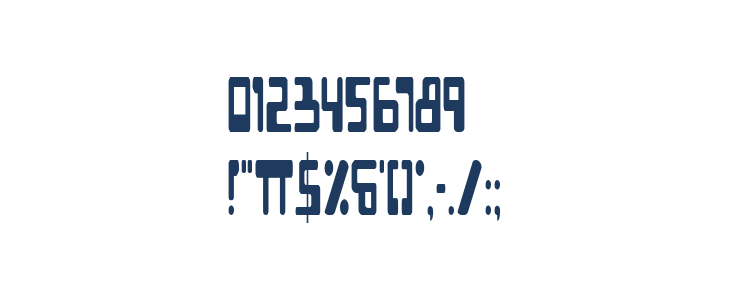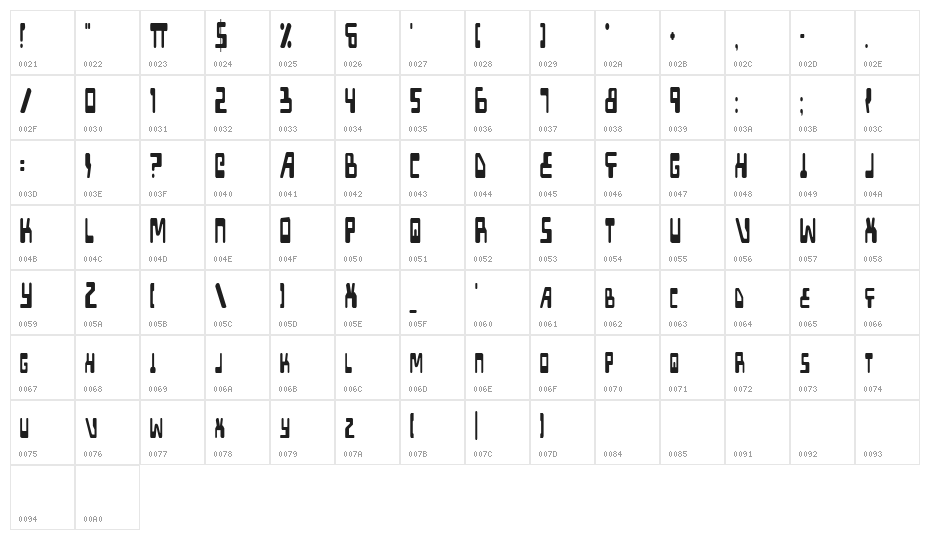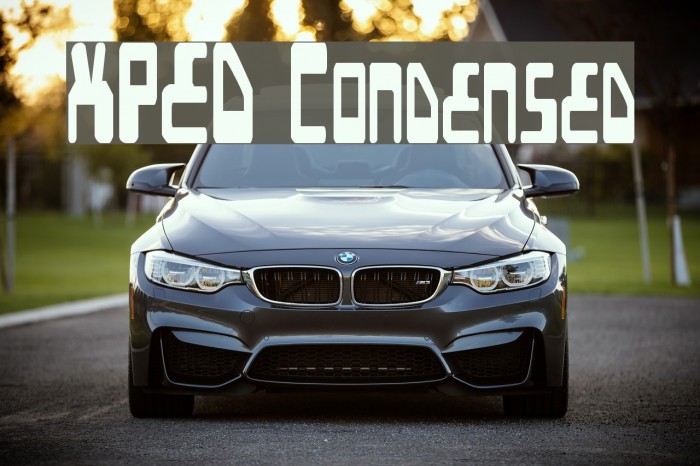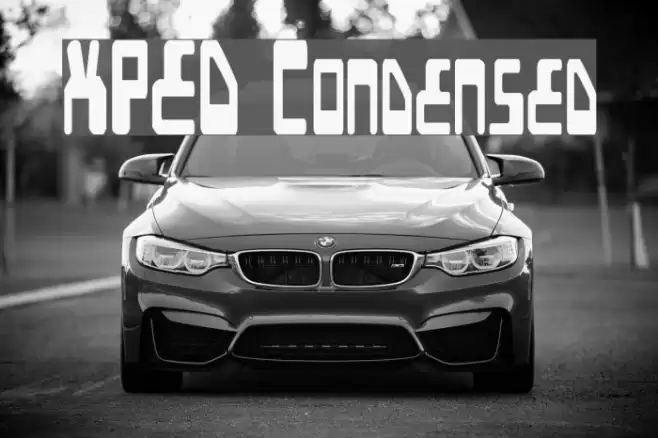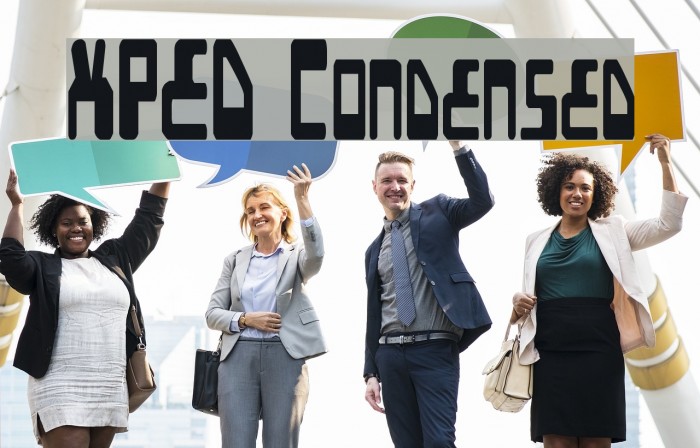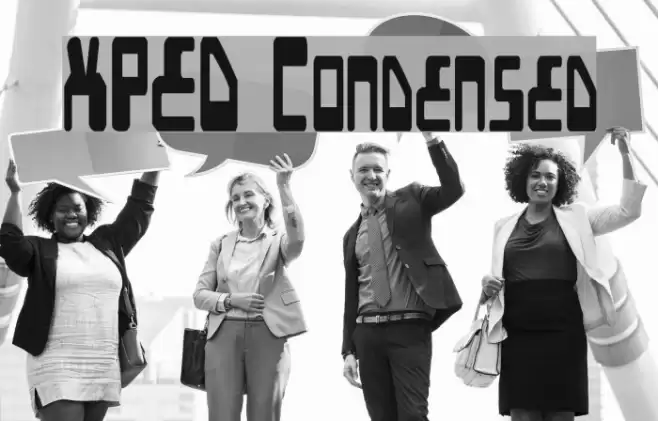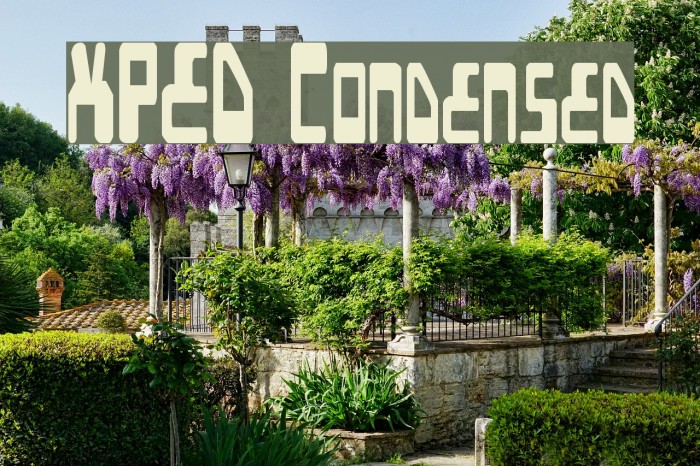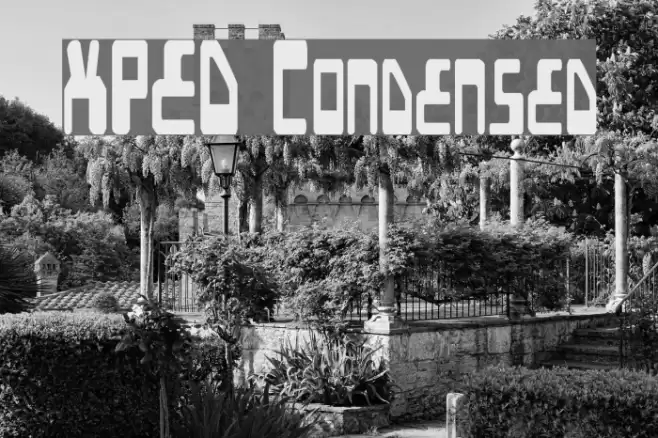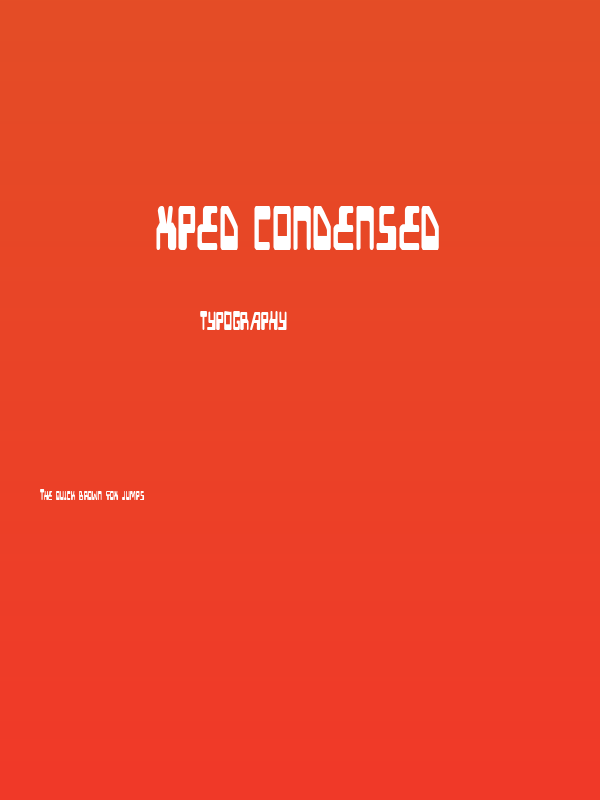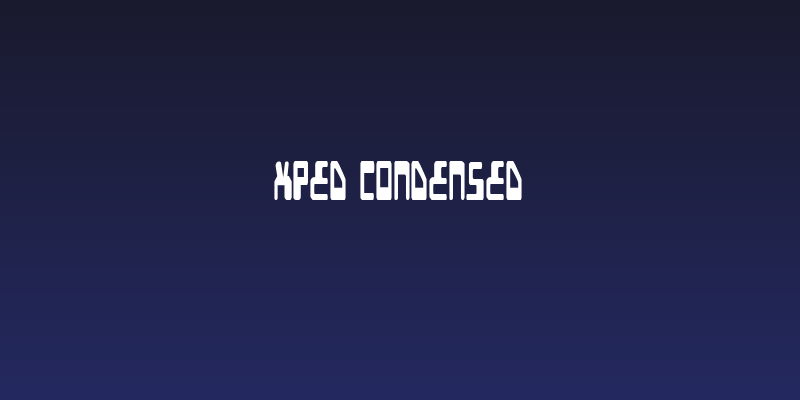
XPED Condensed Font
XPED Condensed Description
This font features a bold and condensed style with a modern and futuristic aesthetic. The characters are uniquely designed with a geometric influence, showcasing a combination of sharp angles and rounded edges. The uppercase and lowercase letters maintain a consistent height, enhancing readability while preserving a distinct visual appeal. The numerals and special characters are crafted to match the overall style, providing a cohesive look across all elements. The font's condensed width makes it suitable for space-saving designs, while its boldness ensures it stands out in any context.
| Proposed Projects | Ideal for tech-related branding, futuristic posters, and modern web design. |